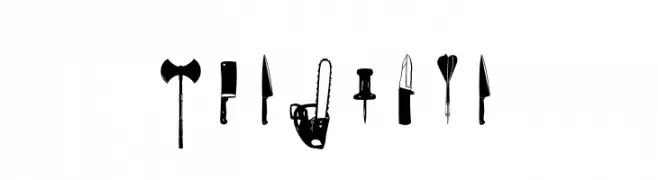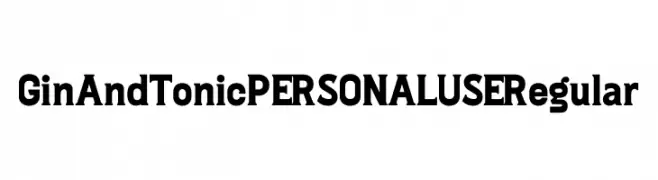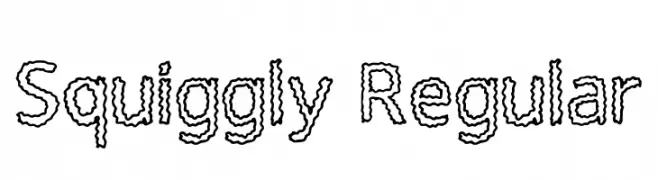
A light, elegant serif font with classic design elements and refined serifs.
A bold, modern font with a vintage touch, featuring strong, consistent characters.
A playful, squiggly outline font with a hand-drawn aesthetic.
A modern, geometric font with consistent stroke widths and a clean, technical appearance.
A pixelated, monospaced font with a retro digital style.
A pixelated, retro font with a blocky, geometric style.
A display font made from weapon and tool silhouettes.
A decorative font with intricate geometric patterns and bold strokes.
A dot matrix font with a digital, modern appearance, ideal for LED displays.
A textured, bold font with a smoky, organic appearance.